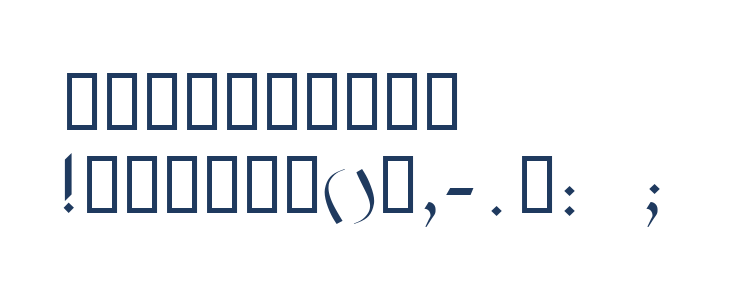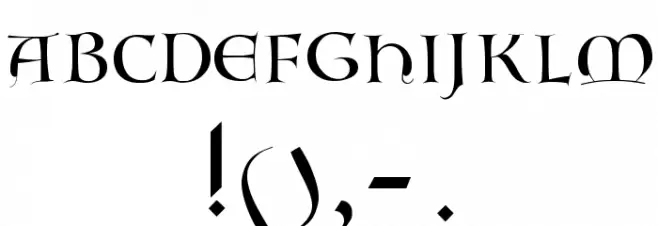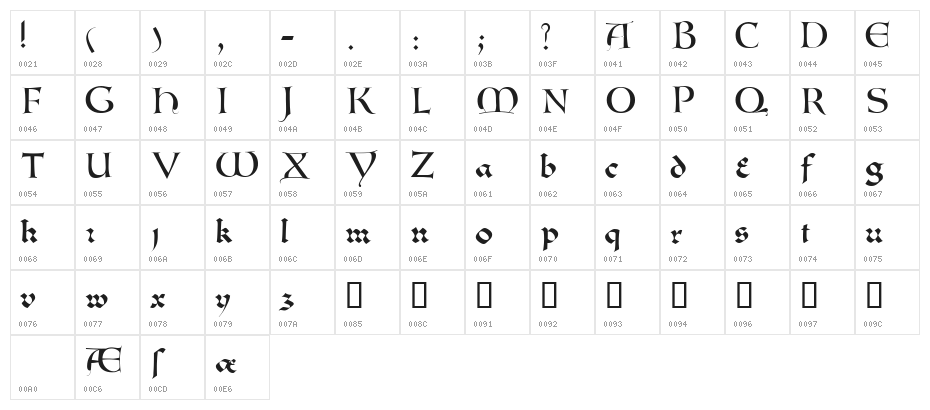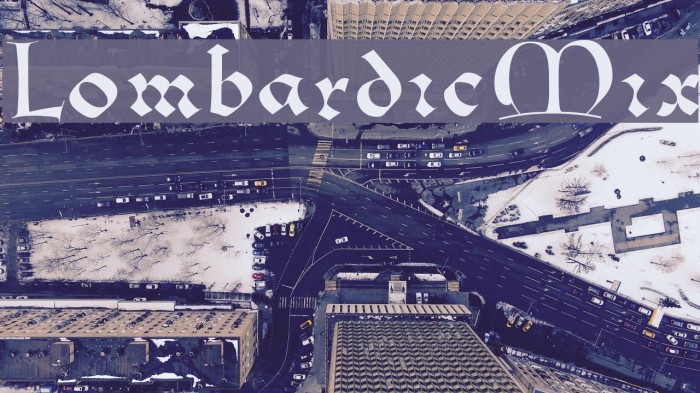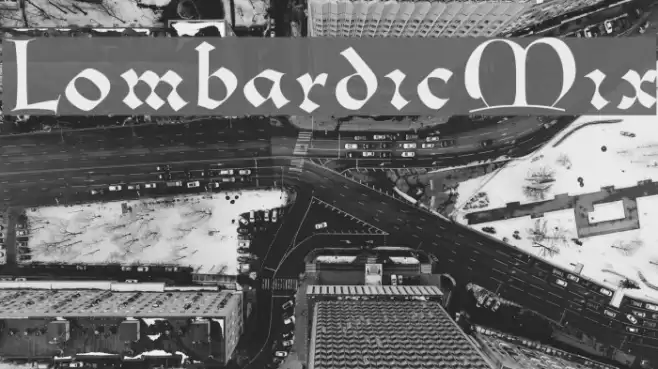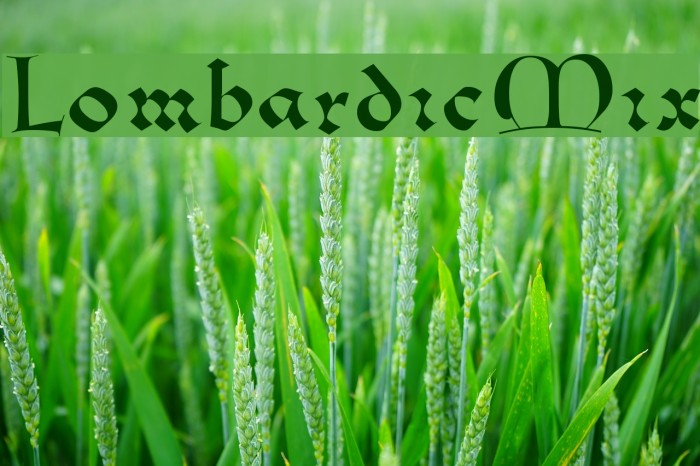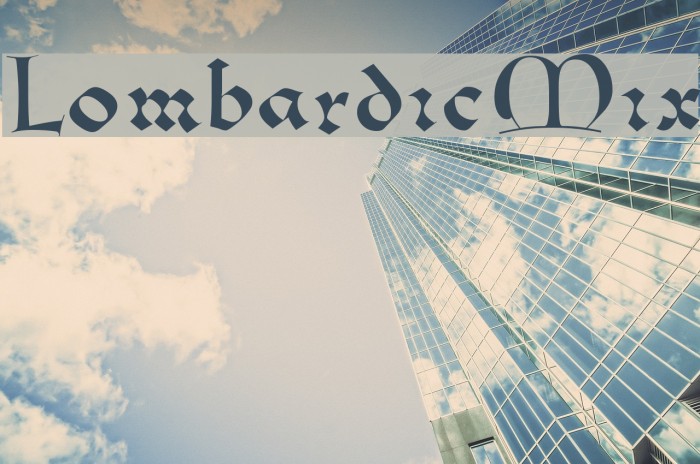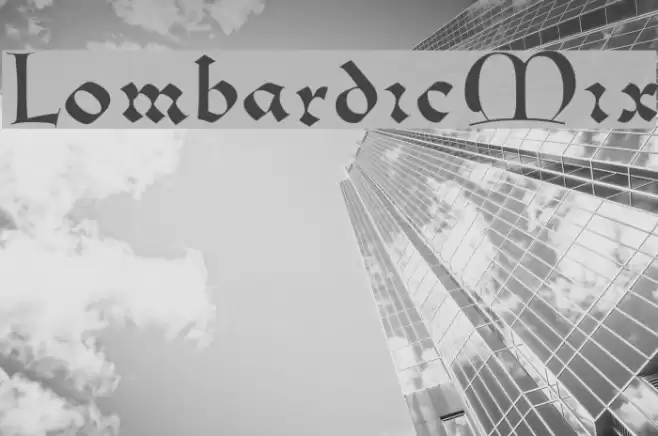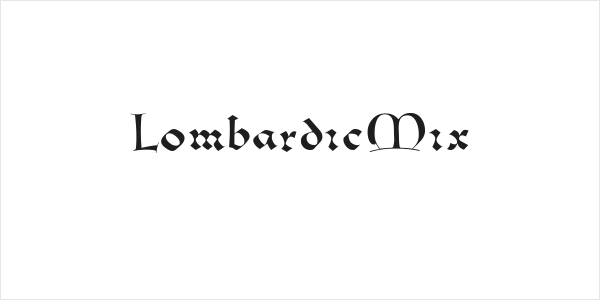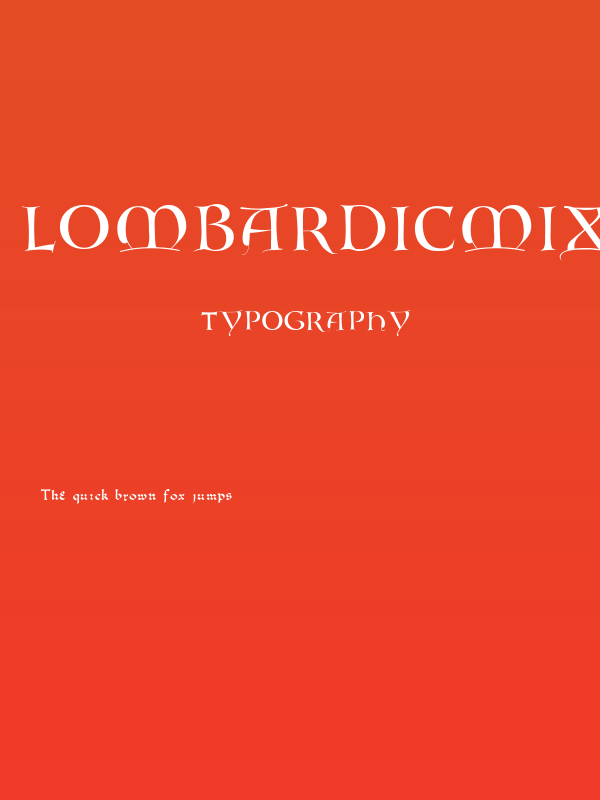
LombardicMix Font
LombardicMix Description
This font features a distinctive blend of medieval and gothic influences, characterized by its ornate and decorative letterforms. The uppercase letters exhibit a strong, angular structure with pronounced serifs and intricate detailing, reminiscent of traditional blackletter styles. The lowercase letters maintain a similar aesthetic, with a slightly more rounded and flowing appearance, providing a harmonious balance between rigidity and fluidity. The numerals and special characters are crafted with the same attention to detail, ensuring consistency throughout the typeface. This font's unique style evokes a sense of history and tradition, making it ideal for projects that require a touch of elegance and sophistication.
| Proposed Projects | Suitable for historical or fantasy-themed projects, book covers, invitations, and branding that requires a classic and elegant touch. |